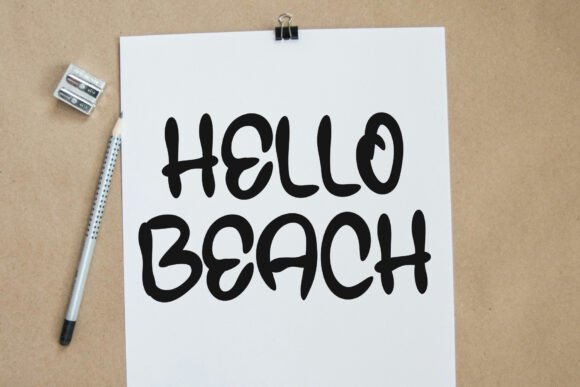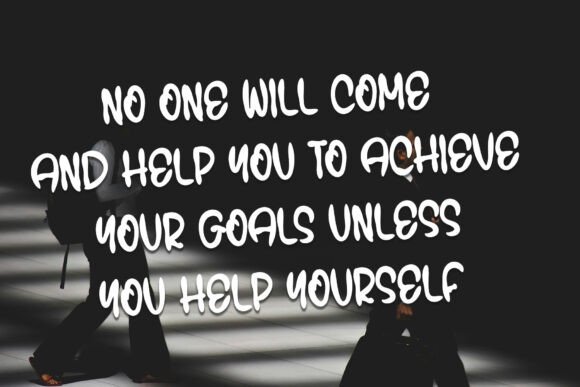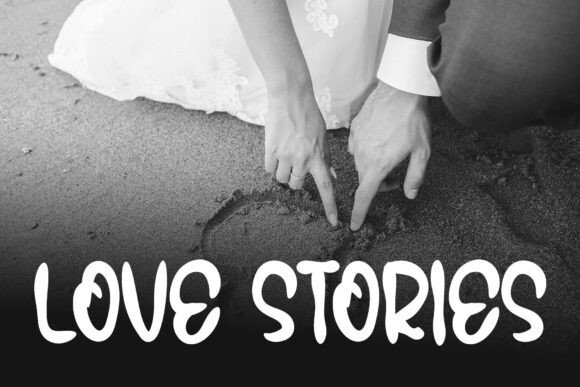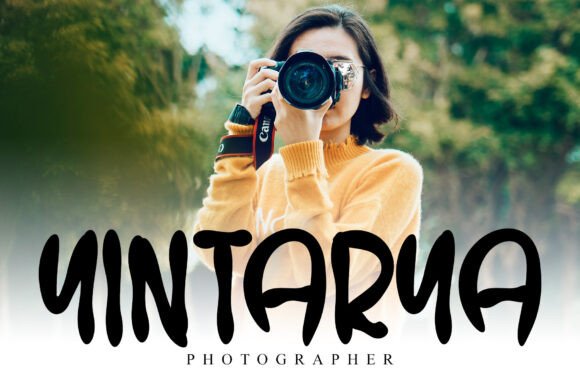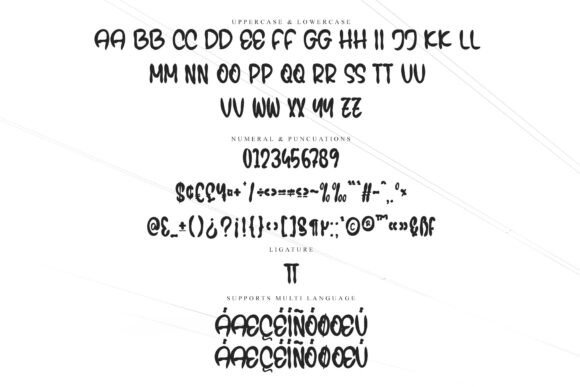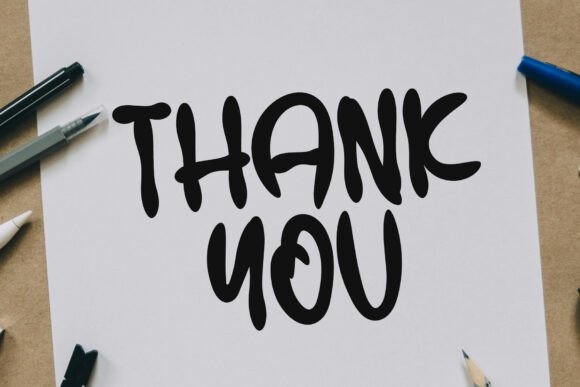
The Magic of Autumn Pumpkin Font: A Designer’s Delight
I’ll never forget the day I stumbled upon the perfect font for a client’s Halloween-themed project. I had been searching for what felt like hours, trying out font after font, but nothing seemed quite right. That was until I discovered the Autumn Pumpkin font. Its whimsical, quirky charm instantly captured the essence of the season, and I knew I had found the one. In this article, I’ll share my experience with this delightful font, its features, and how to make the most of it in your designs.
An Honest Review of Autumn Pumpkin Font
• ✨ Unique and charming display font that’s perfect for autumn and Halloween-themed designs
• ✅ Whimsical and quirky, adding a touch of personality to any project
• 🌟 PUA coded, making it easy to access all the amazing glyphs and ligatures
• 🎉 Works beautifully for titles, headings, and short text passages
While Autumn Pumpkin font is a stunning addition to any design, there are a few things to keep in mind:
• 🤔 May not be the best choice for body text or long passages, as its uniqueness may get lost
• ⚠️ Some glyphs and ligatures may require manual adjustment for optimal spacing and alignment
The Backstory of Autumn Pumpkin Font
Autumn Pumpkin font was designed with the intention of capturing the essence of the fall season. Its creator drew inspiration from the warmth and coziness of autumn afternoons, combined with the playfulness of Halloween. The result is a font that’s both charming and versatile, perfect for a wide range of design projects.
A: Absolutely! Autumn Pumpkin font is perfect for personal projects, such as crafting, scrapbooking, or DIY blogs. Its whimsical charm and autumnal theme make it an excellent choice for adding a touch of personality to your creations.